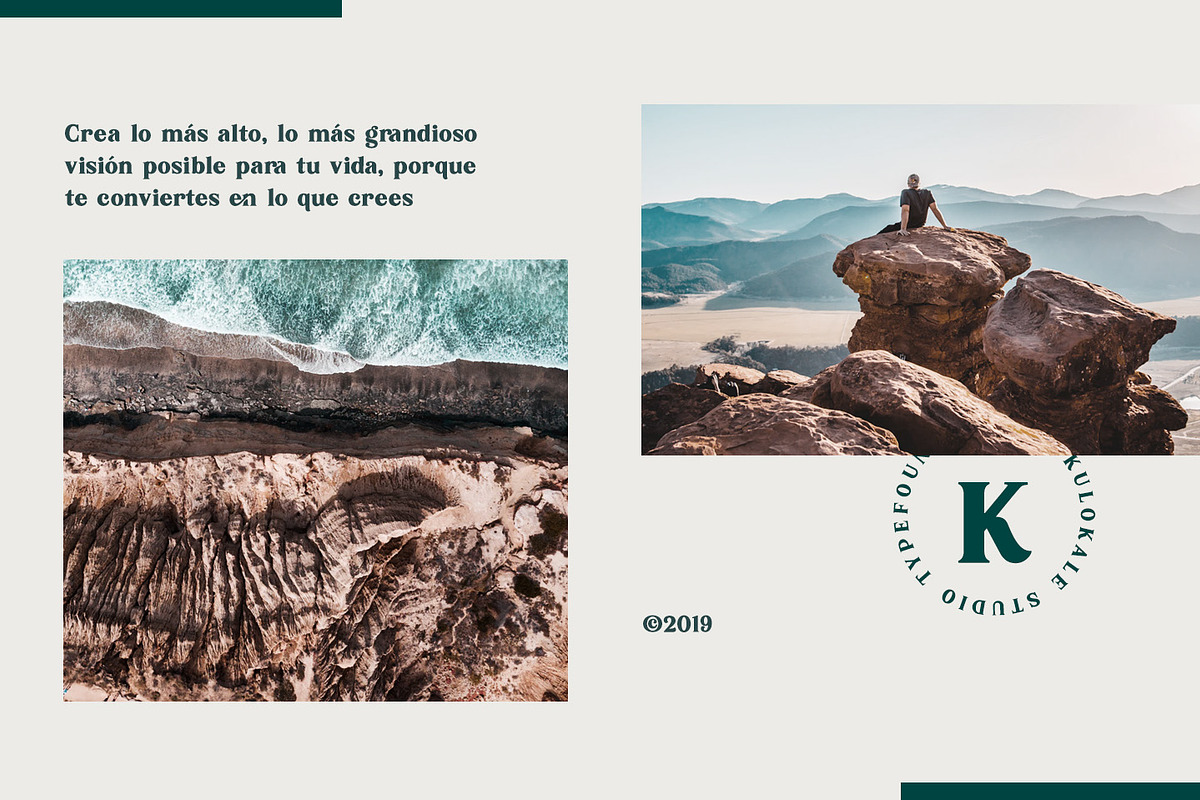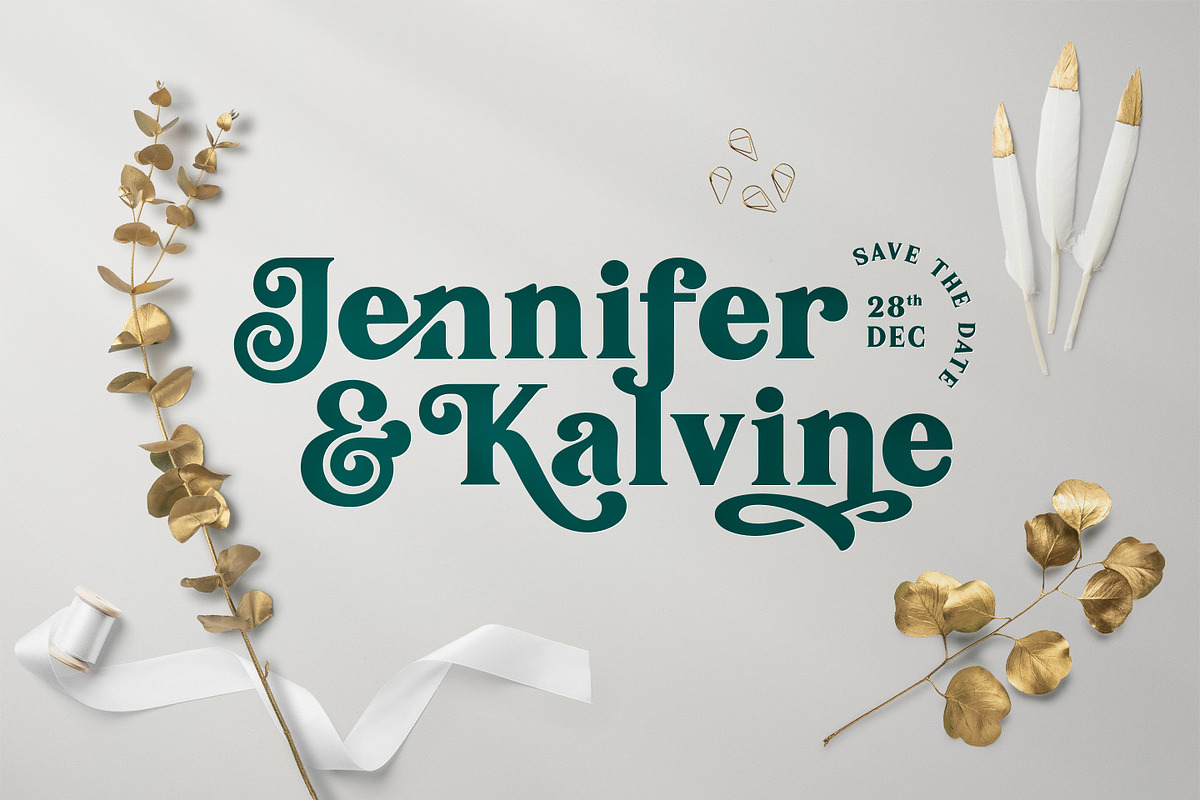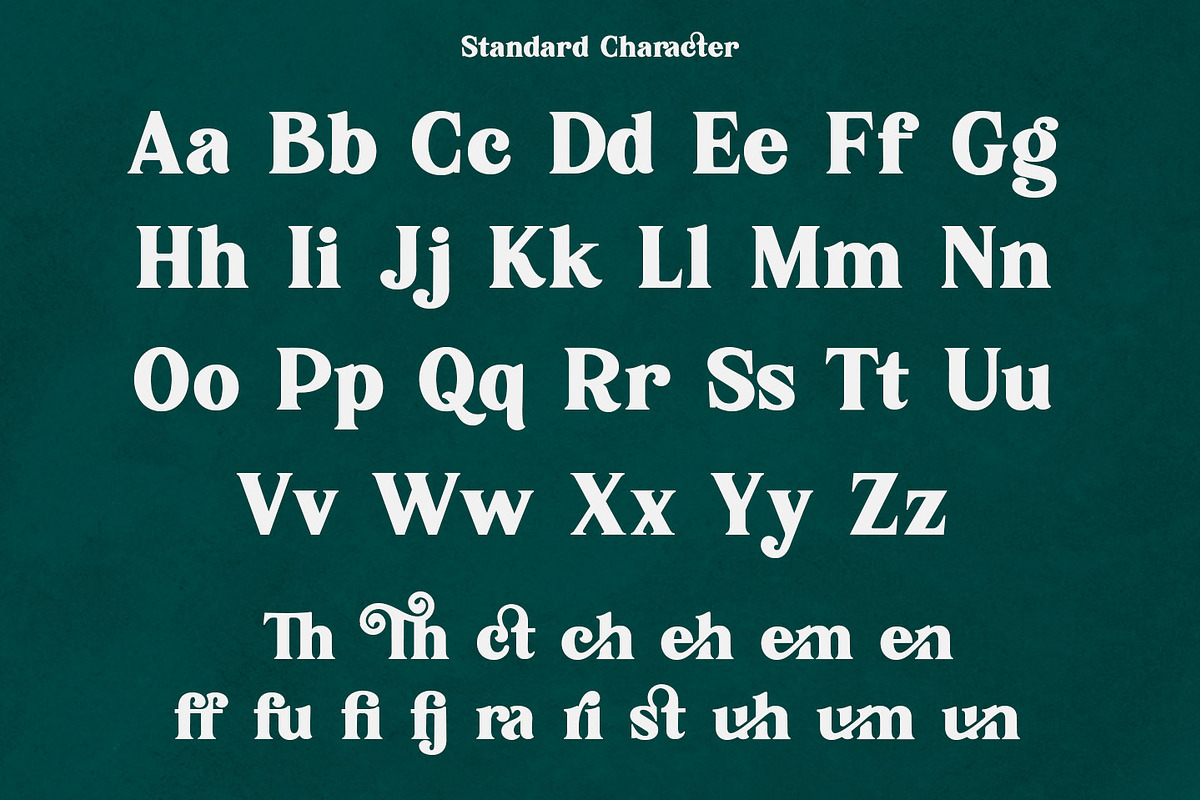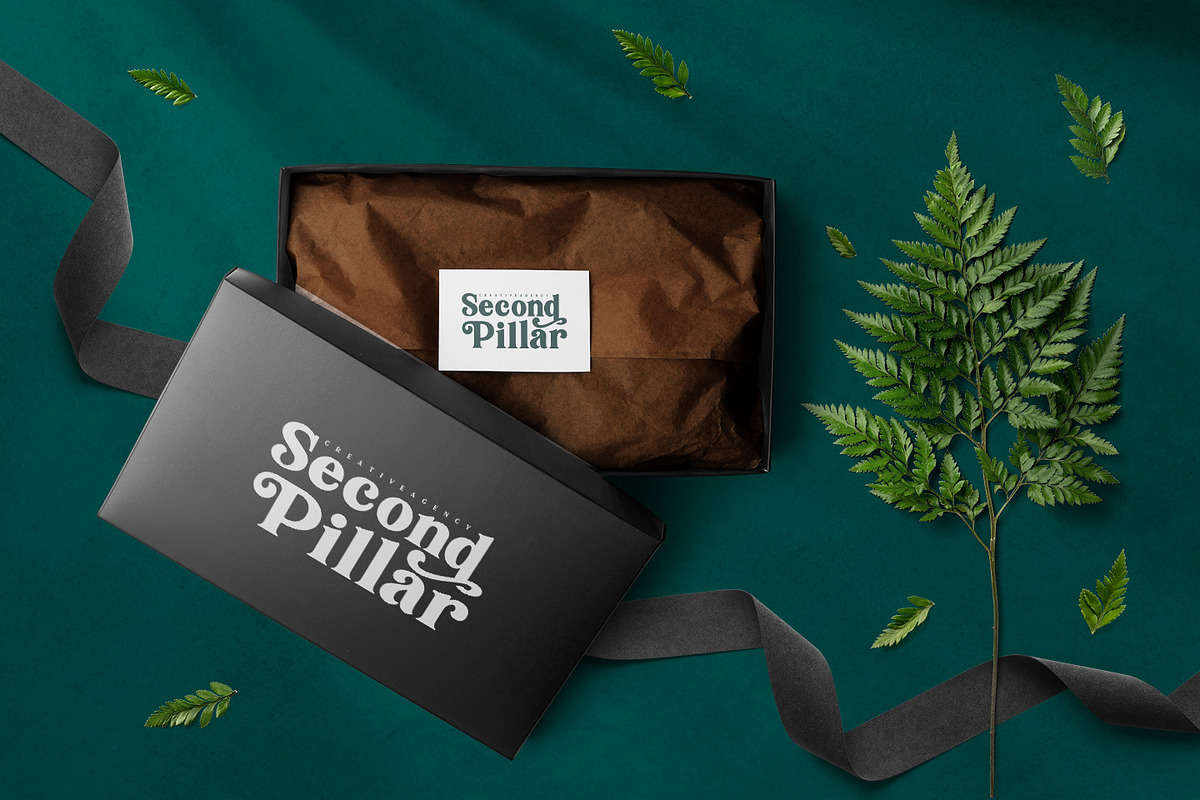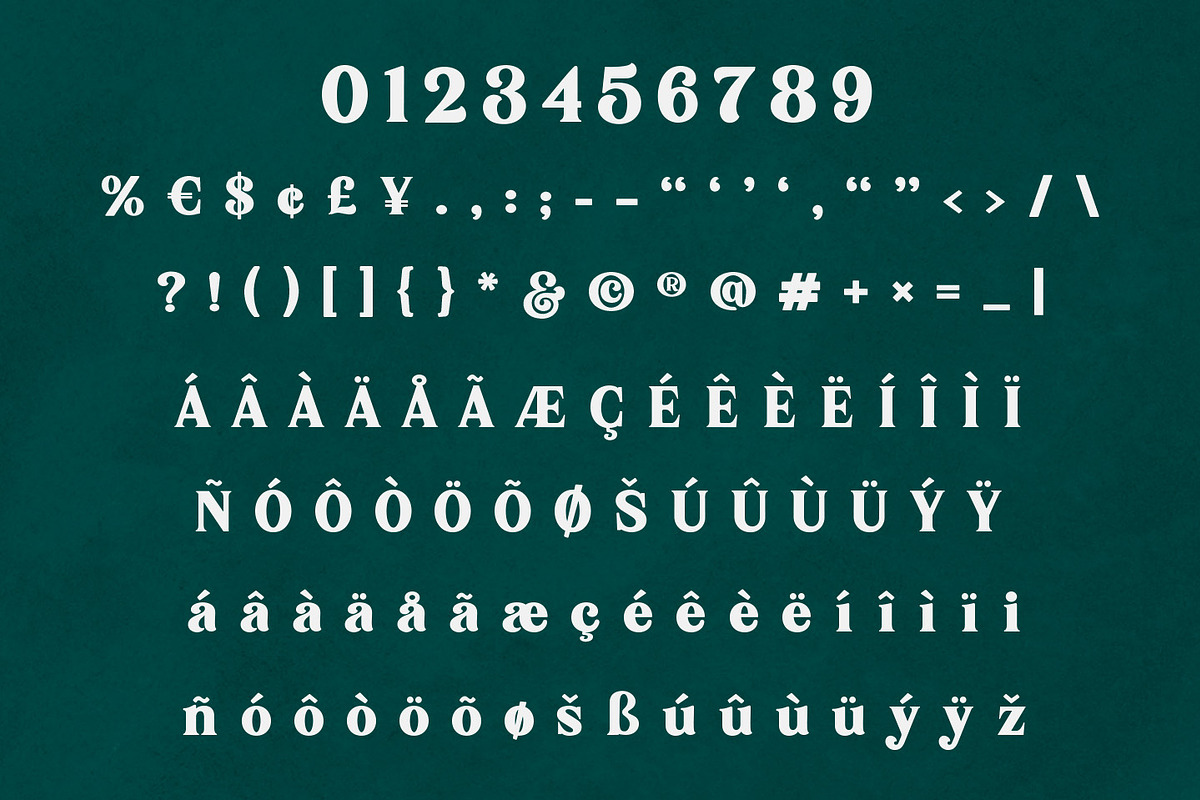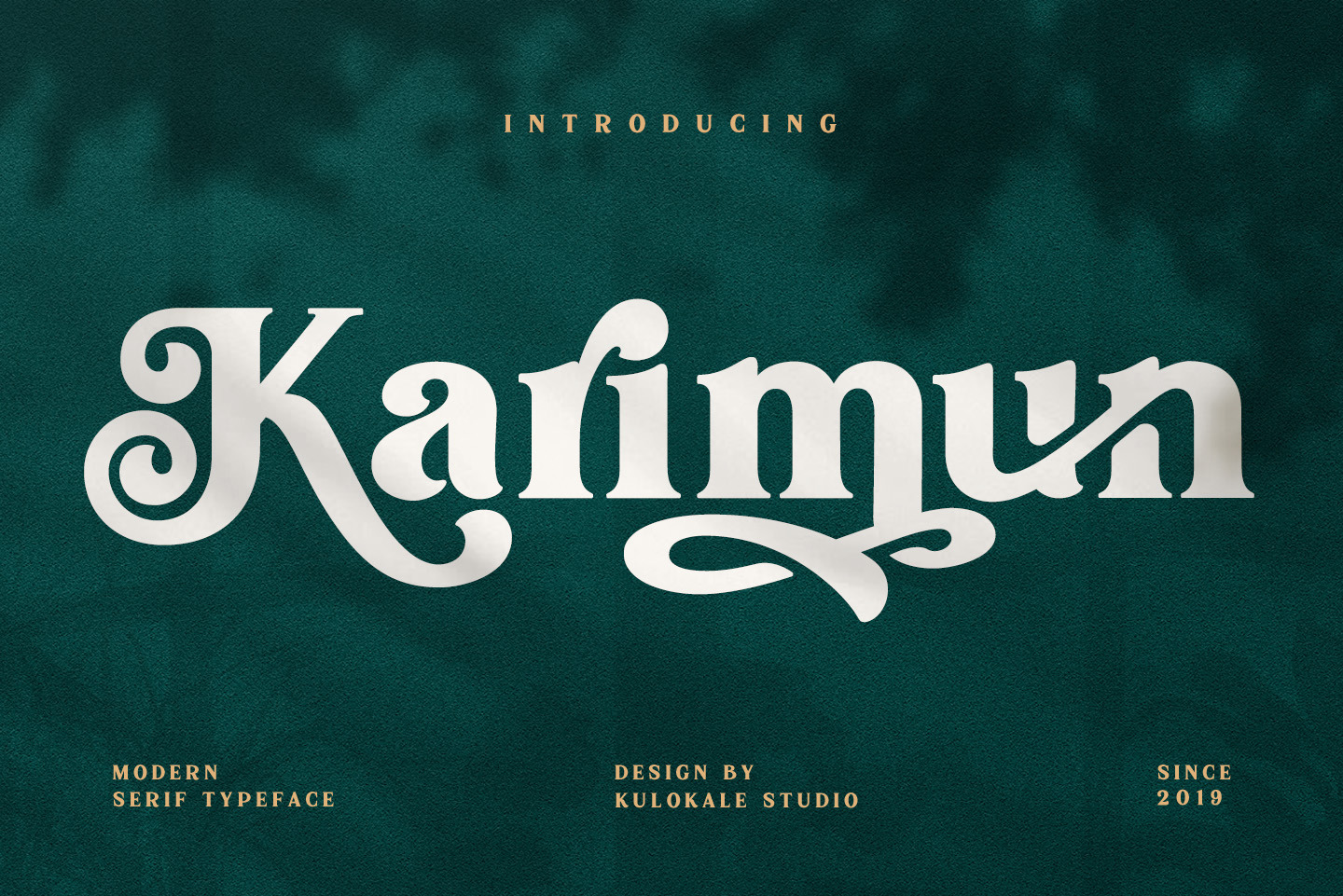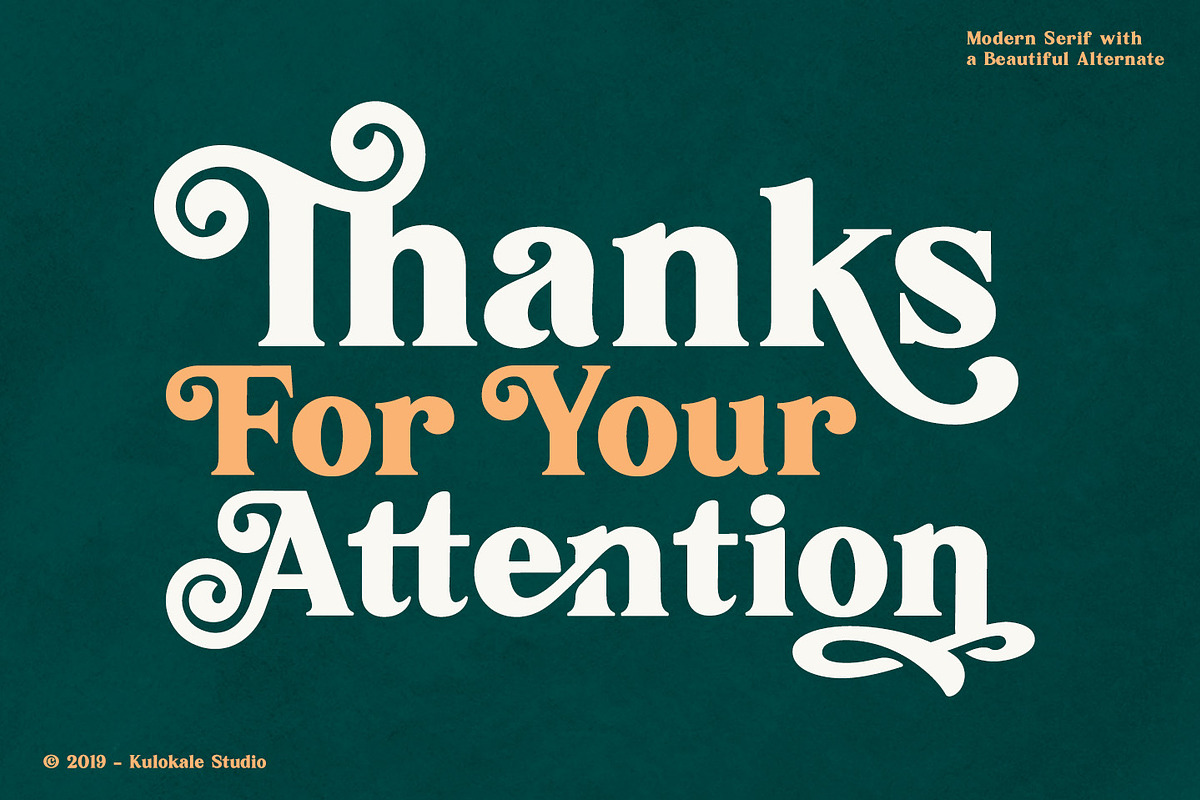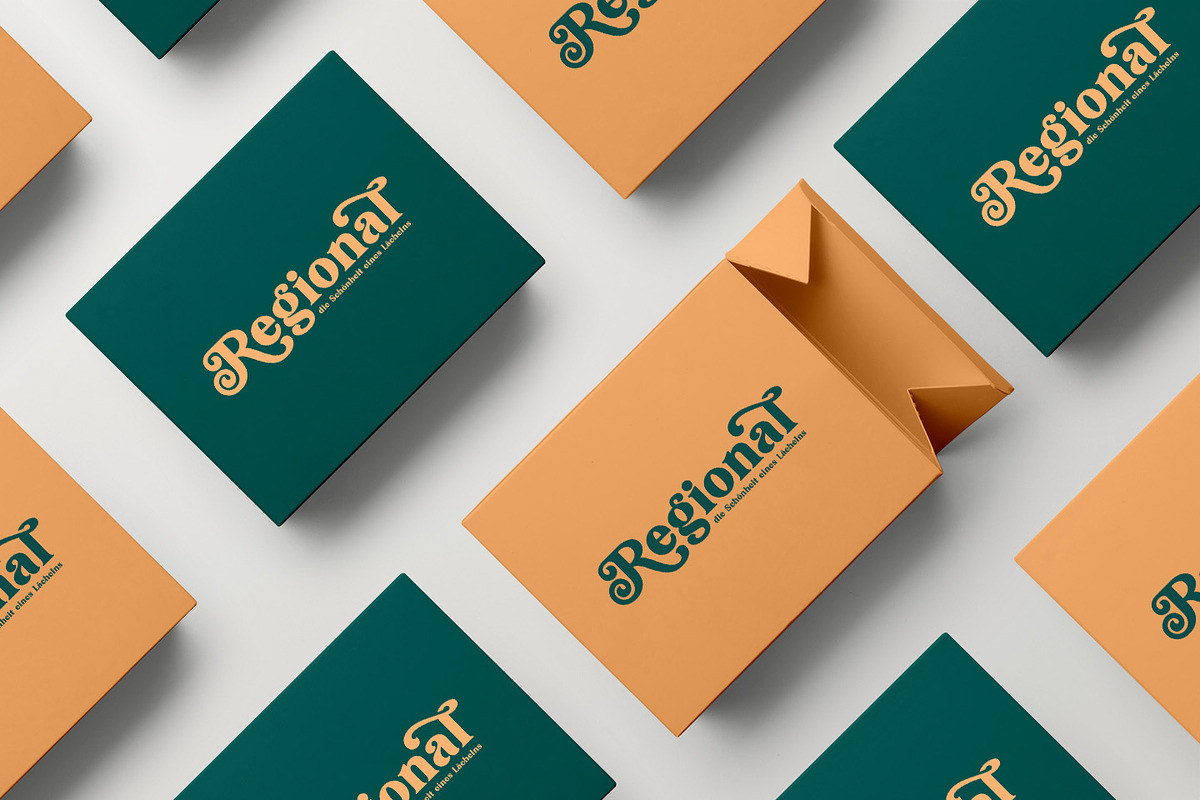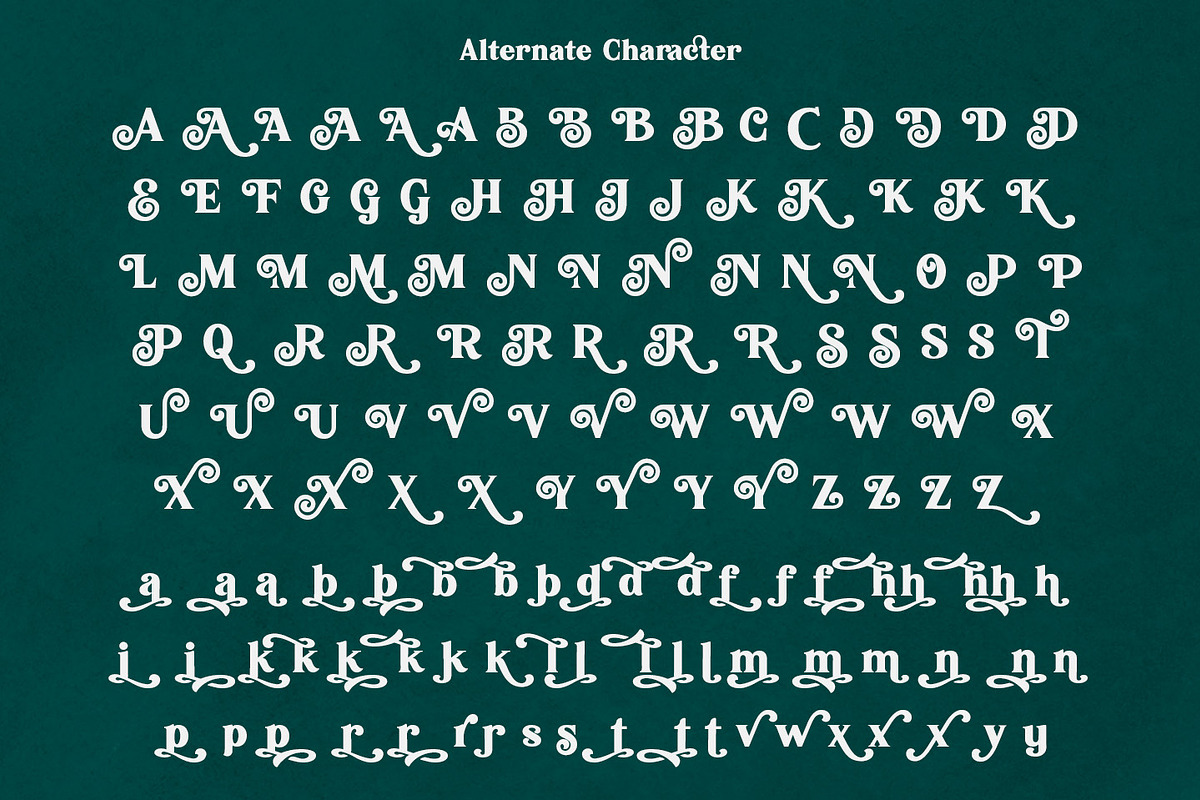
Karimun - Modern Serif Font
Thanks for checking out Karimun Font! Modern serif font with beautiful alternate characters and also ligature which makes it easy for you to create a logo for your personal branding and your business beautifully.
Karimun is perfect for many different projects such as logos & branding, invitation, stationery, wedding designs, social media posts, advertisements, printed quotes, product packaging, product designs, label, photography, watermark, special events or anything.
- Karimun includes Capital and Lowercase letters, Alternates, and Ligatures
- Numbers + punctuation
- Foreign language support